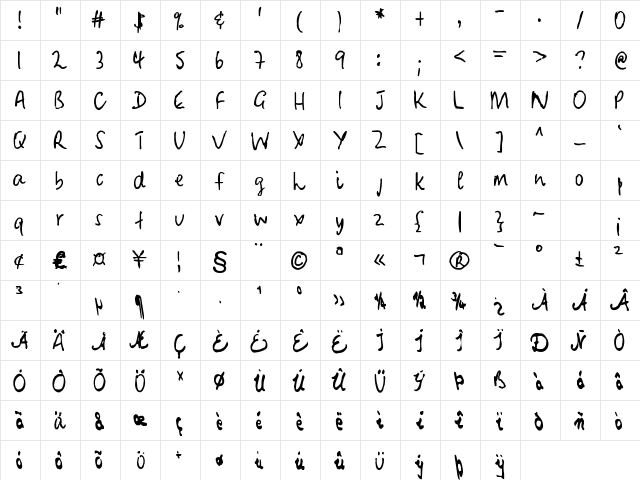
QEJonasVasey Regula
Design Context for QEJonasVasey Typeface
QEJonasVasey is a composed and adaptable typeface that performs quietly and consistently across a wide range of design contexts.